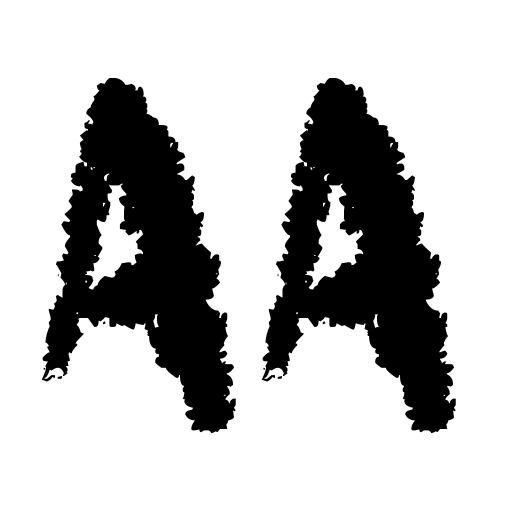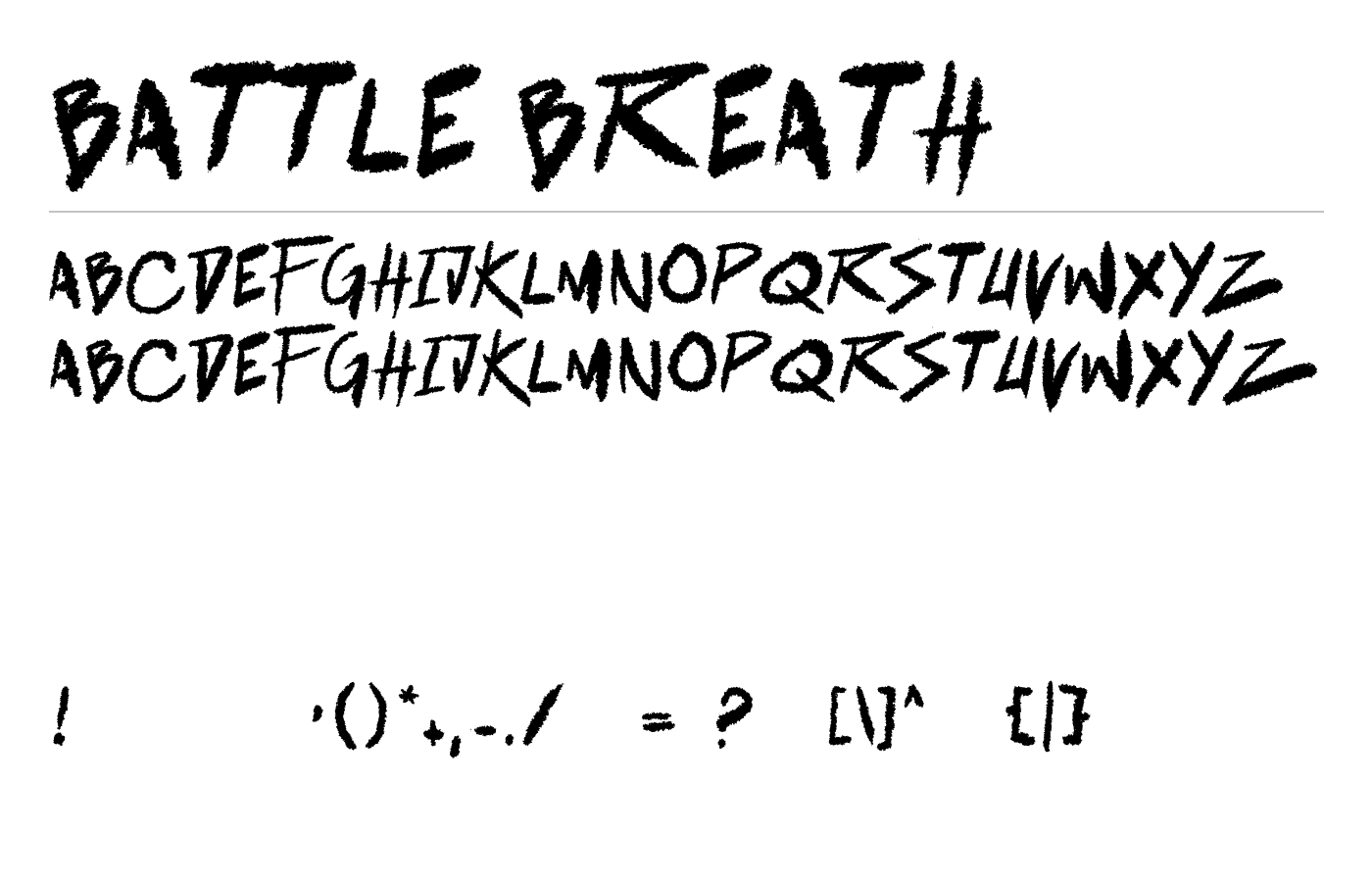
Battle Breath is a bold, hand-drawn brush font with an energetic and rough texture that conveys a raw, dynamic feel. Its uppercase characters feature irregular edges and lively strokes, making it perfect for expressive, eye-catching designs that require a rebellious or adventurous vibe. This font works well for posters, logos, and branding where a strong, spirited personality is needed.
battle breath Font